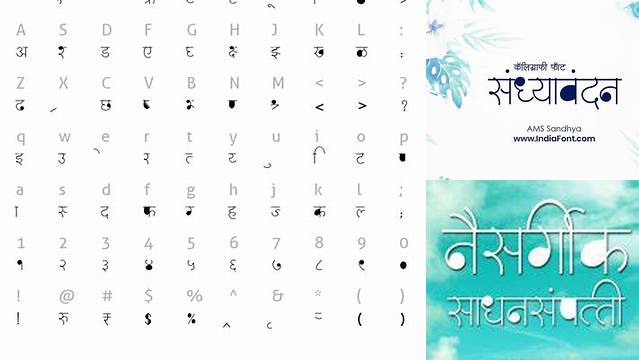
What is AMS Sandhya Font?
The AMS Sandhya font is a widely used typeface, particularly popular in India for Hindi and Marathi typography. Its clear, legible design makes it suitable for various applications, including print media, digital content, and branding. AMS fonts are known for their versatility and aesthetic appeal, making them a favorite among designers and publishers. Understanding the nuances of this font, including its different weights and styles, is crucial for effective use. Whether you're designing a website, creating marketing materials, or working on a publishing project, the AMS Sandhya font can add a touch of elegance and professionalism to your work.
Why Choose AMS Sandhya Font?
Choosing the right font can significantly impact the readability and visual appeal of your projects. The AMS Sandhya font stands out due to its balanced design and excellent legibility, making it a top choice for various applications. One of the primary reasons to choose AMS Sandhya is its versatility. It works well in both headings and body text, ensuring consistency across your design. Furthermore, its clean and modern appearance can enhance the overall aesthetics of your project. Whether you're working on a professional document or a creative design, AMS Sandhya font offers a blend of functionality and style that can elevate your work.